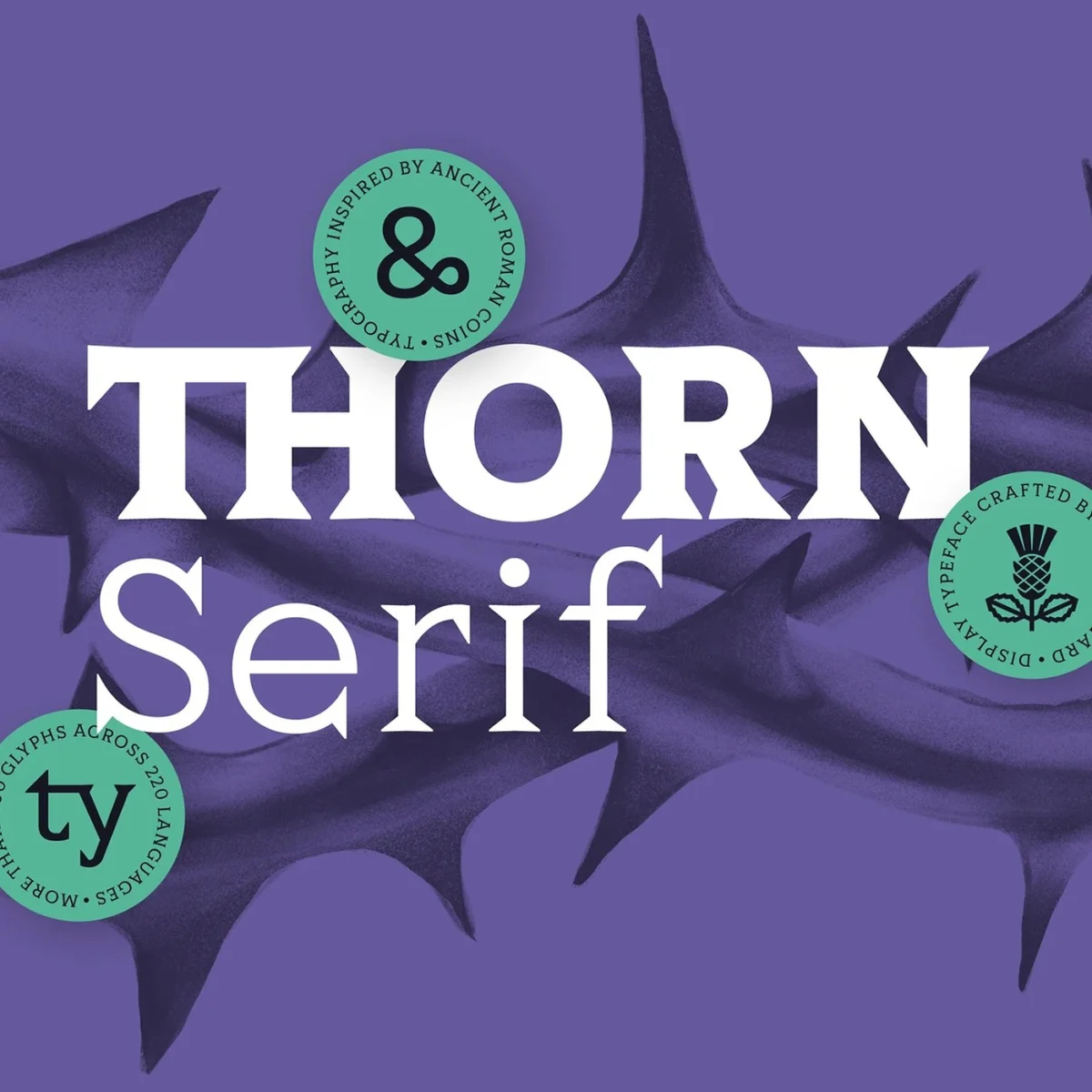
September 20, 2026 – Type Forward, in collaboration with esteemed designers Stan Partalev and Mirela Belova, has officially launched Thorn Serif, an innovative eight-weight variable font family meticulously engineered for high-impact display typography. This groundbreaking typeface draws profound inspiration from the robust and enduring aesthetics of classical Roman coinage, translating the tactile force of ancient numismatic dies into a versatile digital medium. The launch marks a significant moment in contemporary typeface design, offering a unique blend of historical authenticity and cutting-edge technological adaptability for branding, editorial, and packaging applications.
The Genesis of Thorn Serif: A Numismatic Legacy Reimagined
Thorn Serif is more than just a new typeface; it is a meticulously researched tribute to the foundational principles of Roman letterforms. The design team embarked on an ambitious journey to explore the rich history embedded within ancient Roman coins, where skilled smiths painstakingly hammered individual letterforms into metal blanks using iron dies. This rudimentary yet highly effective method of letter construction produced characters imbued with a distinct structural integrity and raw power. For instance, the letter ‘E’ was often formed by striking a single vertical bar followed by three horizontal punches, while the ‘V’ emerged from two angled die hits converging at the base, resulting in a characteristic triangular bottom serif. The letter ‘I’ frequently displayed sharp terminals at both ascenders and descenders, contributing to the overall chiselled appearance. Thorn Serif meticulously translates these mechanical marks and the inherent structural force of early Roman inscriptions into its digital glyphs, capturing the essence of letters literally "struck by an iron punch."
The historical context of Roman coinage extends beyond mere aesthetics; it reflects an era where typography served as a powerful instrument of imperial communication and authority. The legibility and gravitas of these inscriptions were paramount, conveying decrees, celebrating emperors, and marking the very currency of the realm. This inherent demand for clarity, durability, and visual impact has been a guiding principle in Thorn Serif’s development. The typeface consciously eschews delicate curves in favour of rugged, carved serifs, and its strokes resonate with the solidity of stone-cut inscriptions. The design maintains a minimal contrast between stems, fostering a solid, rhythmic presence across the page, reminiscent of ancient epigraphic works.
Design Principles: Fusing Antiquity with Modernity
The aesthetic presentation of Thorn Serif is immediately striking, characterized by deep purple backdrops juxtaposed with vibrant mint green tones in its promotional materials. These bold colour choices underscore the font’s high-impact display aspirations. Sharp thorn silhouettes often frame the robust letterforms, further emphasizing the typeface’s distinctive character and suggesting a blend of organic texture with geometric precision. The visual language created around Thorn Serif is designed to evoke a sense of ancient grandeur while maintaining a contemporary edge.
Beyond its visual allure, Thorn Serif’s anatomical features are precisely calibrated for optimal display performance. A high x-height is paired with compact ascenders, a deliberate grid choice that ensures words lock into tight, efficient display lines. This characteristic is particularly valuable in modern branding and headline typography, where space efficiency and immediate legibility are crucial. Circular badges within the specimen often display thistle marks and Latin specimen notes, reinforcing the historical inspiration and hinting at the comprehensive linguistic support offered by the font family. The resulting forms successfully bridge historical craft with the demands of modern editorial and brand typography, creating a unique visual identity that is both powerful and memorable.
Variable Font Technology: Unlocking Unprecedented Flexibility
One of Thorn Serif’s most compelling features is its implementation as an eight-weight variable font family. This advanced technological approach allows for unparalleled versatility and efficiency. Unlike traditional font families where each weight (e.g., Light, Regular, Bold) is a separate file, variable fonts encapsulate all weights, and potentially other axes like width or slant, within a single, compact file. This not only significantly reduces file sizes – a critical advantage for web performance and digital applications – but also empowers designers with seamless interpolation between predefined weights.
The eight calibrated weights of Thorn Serif span an impressive spectrum, from a razor-sharp Hairline to a monolithic Black. This extensive range provides designers with granular control over typographic expression, allowing for subtle adjustments or dramatic shifts in visual weight. The ability to smoothly transition between these weights, rather than being confined to fixed instances, opens up new creative avenues, particularly in responsive design, animation, and dynamic branding where typography can adapt fluidly to different contexts and user interactions. The variable font format, which gained significant traction following its standardization in OpenType 1.8, is rapidly becoming an industry benchmark for its efficiency and creative potential. Industry reports indicate a year-over-year growth in the adoption of variable fonts by over 30% in the last two years, driven by their performance benefits and enhanced design capabilities. Thorn Serif positions itself at the forefront of this technological wave, offering a robust and future-proof solution.
The character set of Thorn Serif is equally comprehensive, spanning over 800 glyphs and supporting more than 220 languages. This extensive linguistic coverage makes the typeface suitable for global applications, ensuring consistency and accessibility across diverse markets. Furthermore, the family includes a suite of advanced typographic features such as discretionary ligatures, precisely tuned accents, and meticulously crafted kerning pairs. These details, often overlooked, are critical for achieving professional-grade typography, ensuring optimal letter spacing, improved readability, and a refined aesthetic finish in any application.
Practical Applications and Industry Implications
Type Forward has thoughtfully showcased Thorn Serif’s practical versatility through compelling packaging specimens, specifically demonstrating its application on aluminum beverage cans. This choice of medium highlights the font’s ability to maintain crisp clarity and strong presence even in challenging, small-scale, or high-impact environments. Condensed heavy styles of Thorn Serif are depicted anchoring bold product titles on beer cans, conveying a sense of premium quality and robust flavour. Conversely, lighter cuts of the typeface demonstrate their capacity to maintain legibility and sophistication on smaller labels, such as ingredient lists or brand descriptors. This practical demonstration underscores Type Forward’s commitment to creating typefaces that are not only aesthetically pleasing but also highly functional and durable across various physical and digital media.
The implications of Thorn Serif for the branding and packaging industry are substantial. In a competitive market where visual identity is paramount, a distinctive and versatile typeface can significantly enhance brand recognition and consumer appeal. Thorn Serif offers brands a unique opportunity to communicate authenticity, heritage, and strength through their typography. Its historical resonance can be particularly appealing to brands seeking to convey a sense of craftsmanship, tradition, or timeless quality, from artisanal food and beverage products to luxury goods and cultural institutions. The flexibility offered by its variable font nature also means that brands can maintain a consistent typographic voice across an entire ecosystem of touchpoints, from digital advertisements and websites to physical packaging and print collateral, all while optimizing performance and creative expression.
Conclusion
Thorn Serif represents a remarkable achievement in contemporary typeface design, seamlessly blending the robust legacy of ancient Roman numismatic craft with the dynamic capabilities of modern variable font technology. With its eight-weight variable family, extensive glyph support, and meticulous attention to historical detail, Type Forward, Stan Partalev, and Mirela Belova have created a typeface that is both a powerful design tool and a compelling historical narrative. Its versatility for high-impact display, branding, and packaging applications, coupled with its advanced technical features, positions Thorn Serif as a significant asset for designers seeking to infuse their projects with a unique blend of timeless strength and modern sophistication. As the design industry continues to evolve, Thorn Serif stands as a compelling example of how a deep understanding of history can inform and enrich the innovations of tomorrow. Designers and enthusiasts are encouraged to explore the complete specimen and font weights on the Type Forward Behance gallery to fully appreciate the depth and breadth of this extraordinary new typeface.